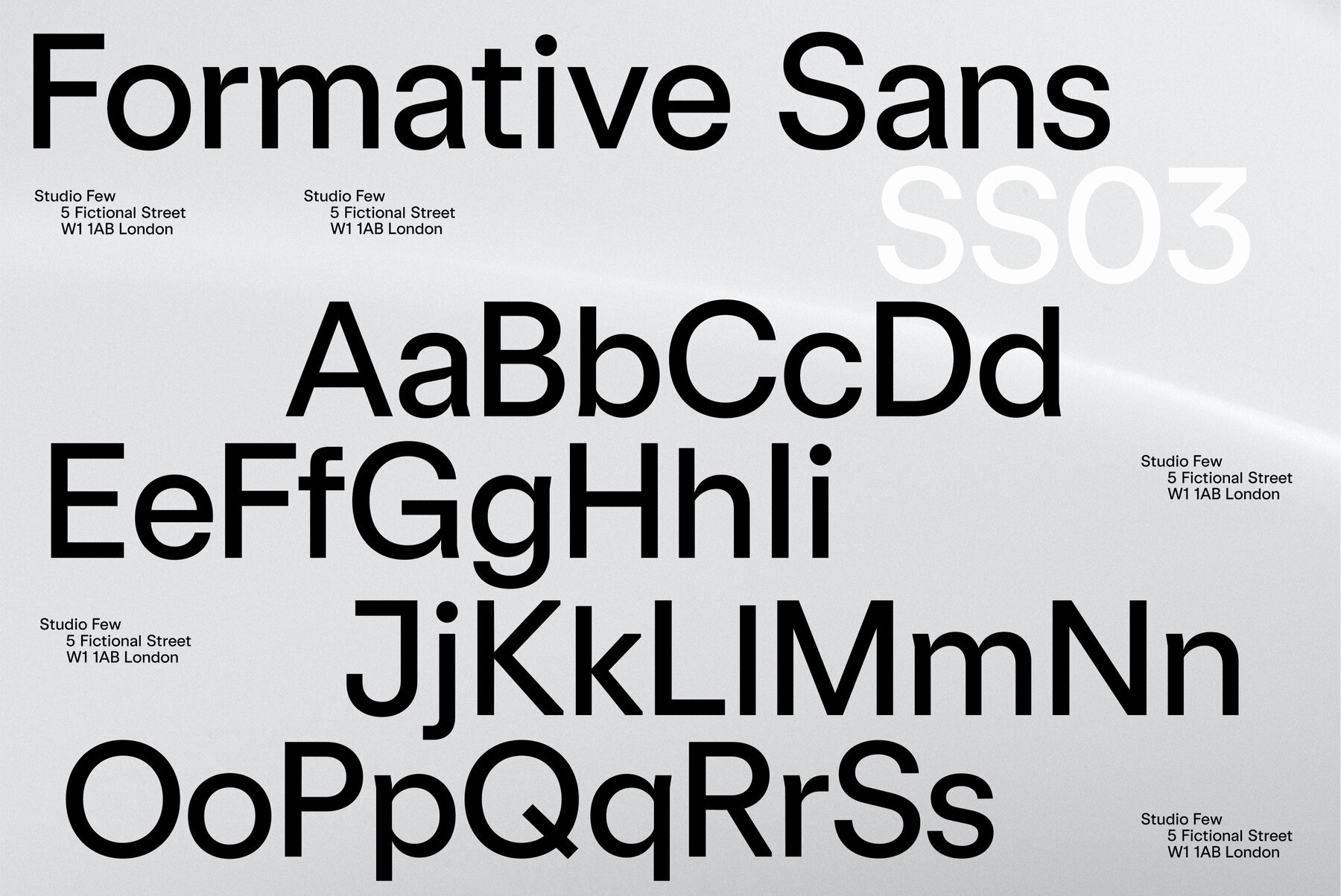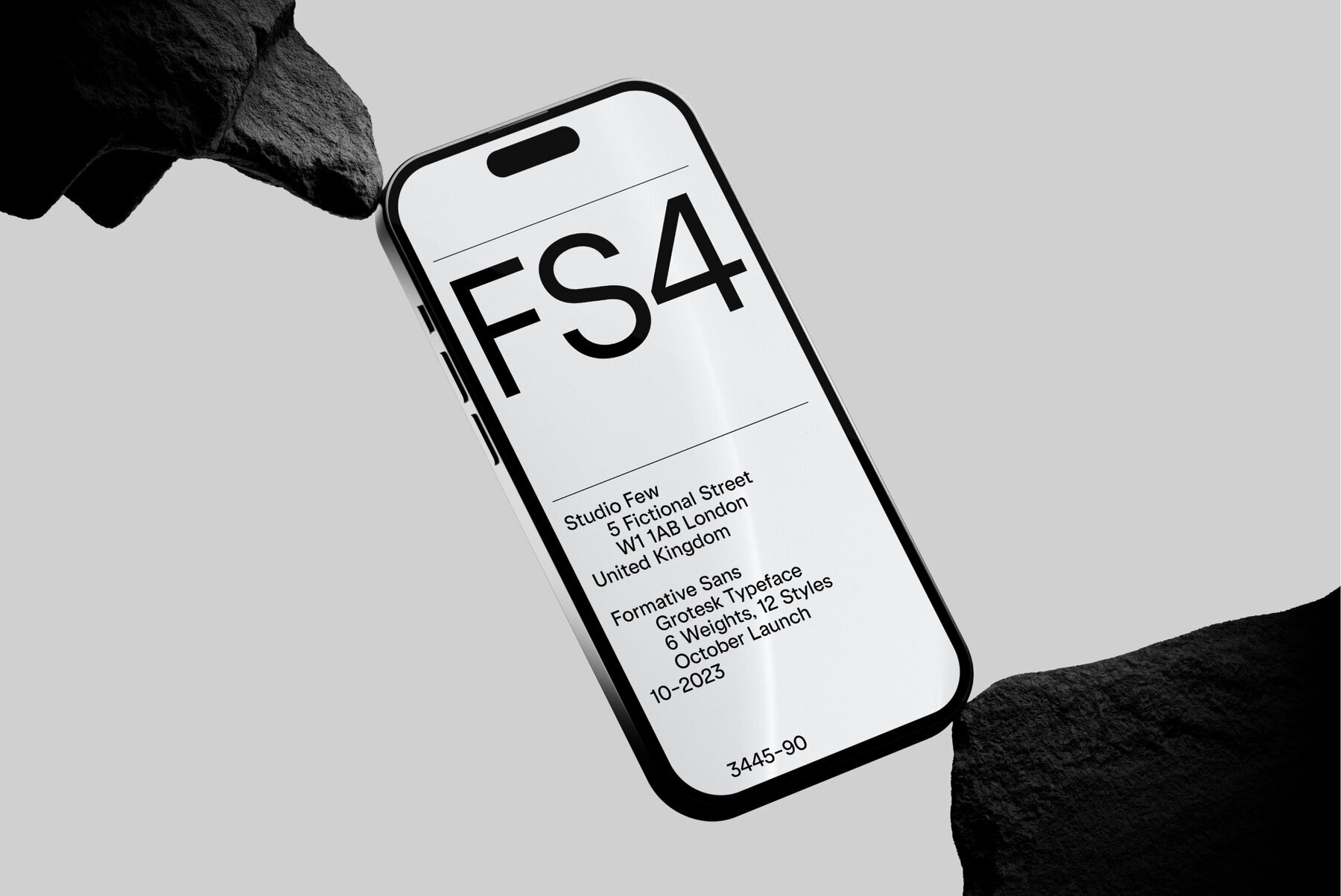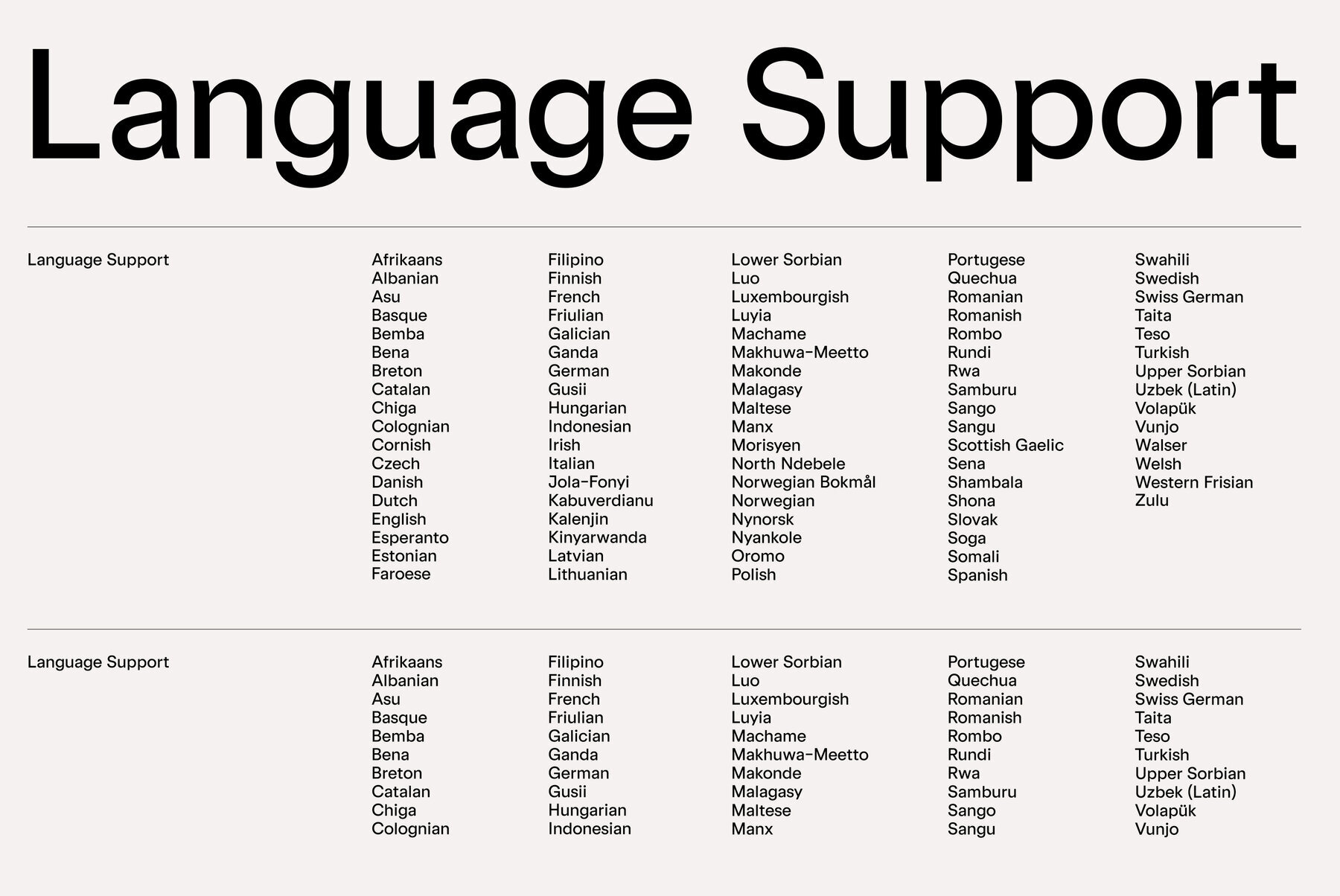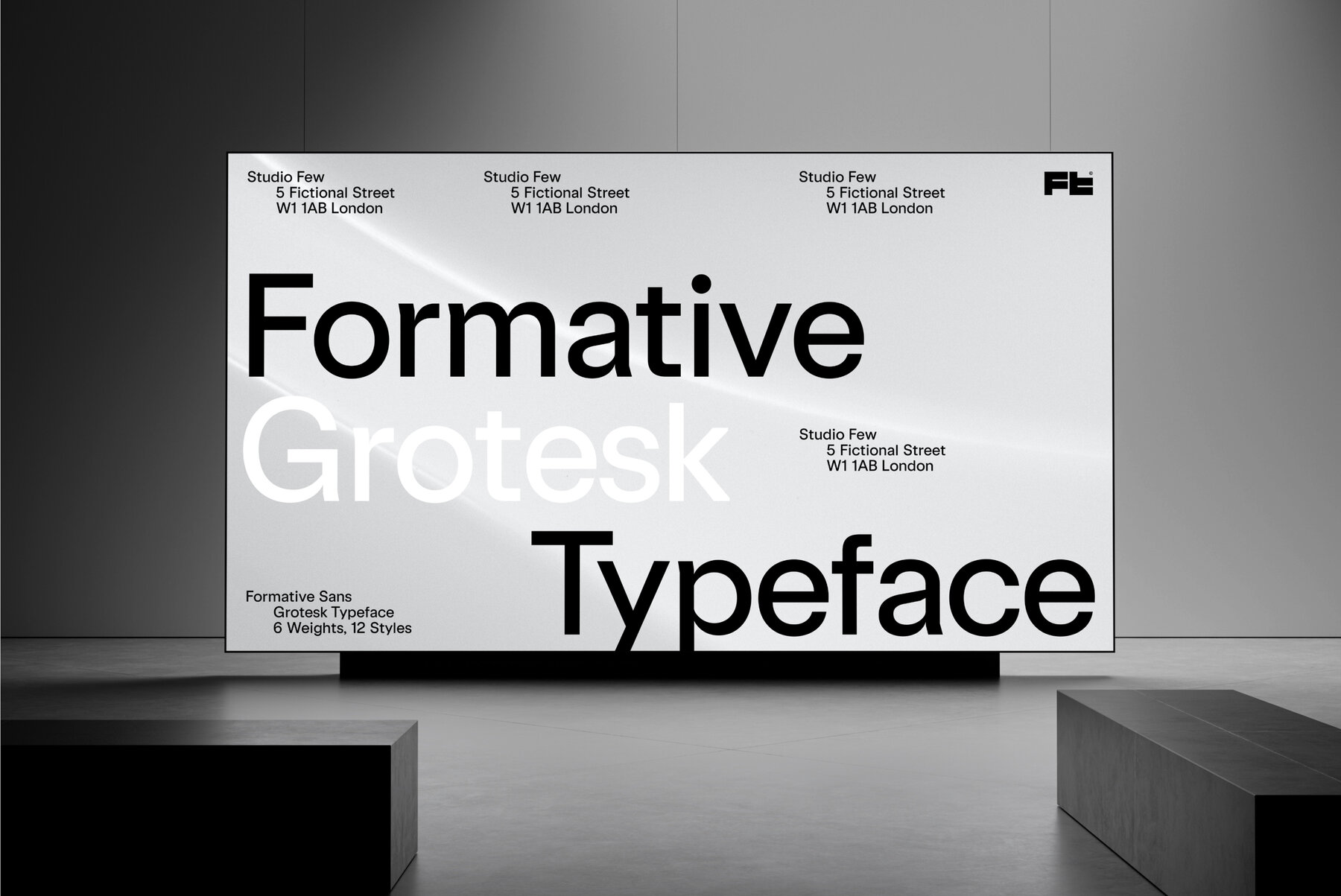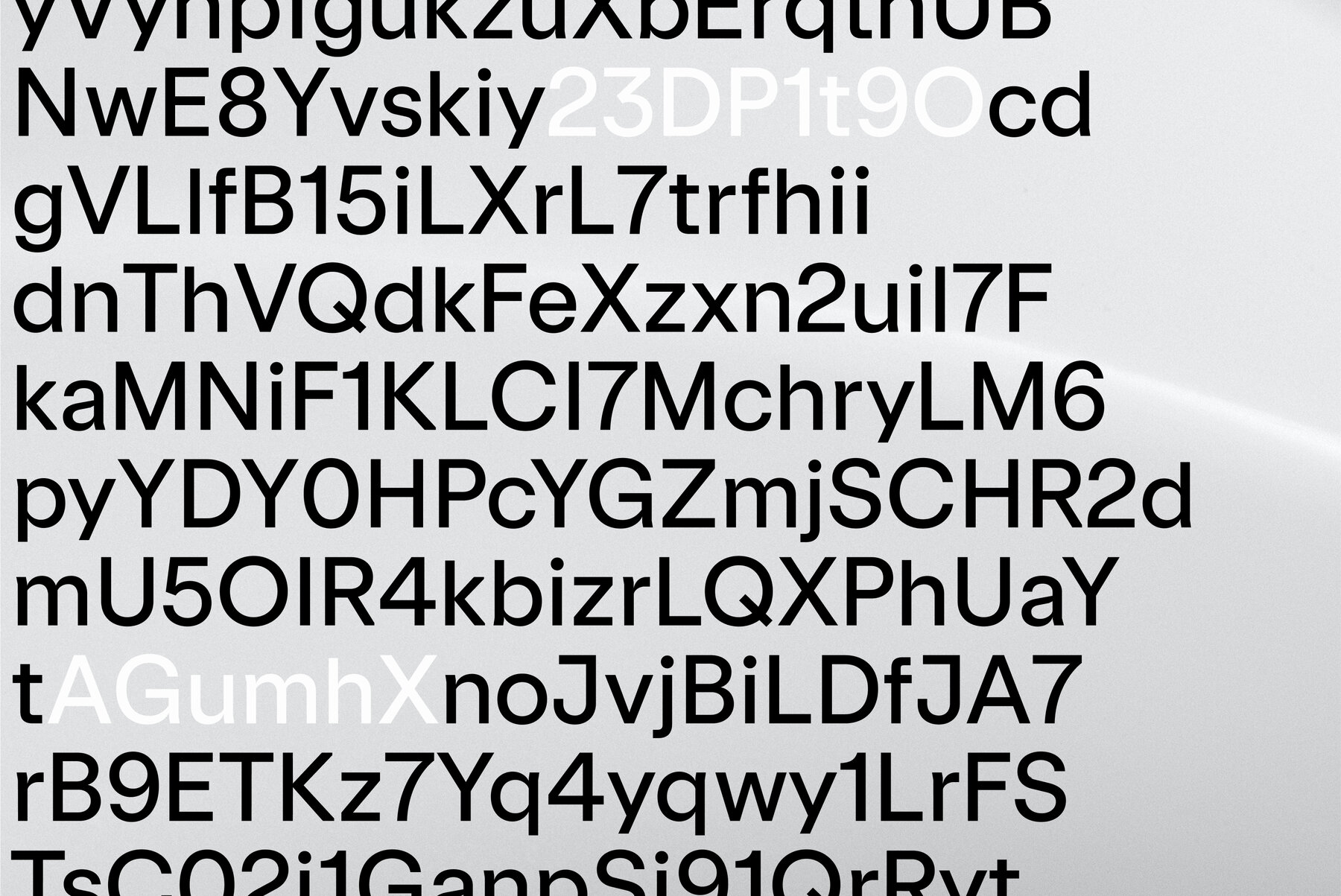
Formative Font
Immerse yourself in the enigmatic charm of "Formative", a typeface that tastefully combines the aesthetic elements of modernity with a subtle vintage touch. Carefully designed by Samuel Oakes, this remarkable font family ushers in a refreshing appeal to graphic design, making it a prime companion for graphic designers and marketing firms aiming to create bold and engaging content. Key Features:Transform Your Designs with the Distinctive Formative Typeface by Samuel Oakes
Brimming with character and soul, Formative stands out with its angled terminals and squared-off bowls, making every letter imbued with a unique bold spirit. While revealing a distinct harmony between curved paths and straight lines, the standoffish yet beguiling nature of Formative is designed to inspire and transform. Being a grotesk typeface with charm, it comes bundled with a stylistic set featuring standard 'text' style terminals to elevate the versatility of your design outputs.